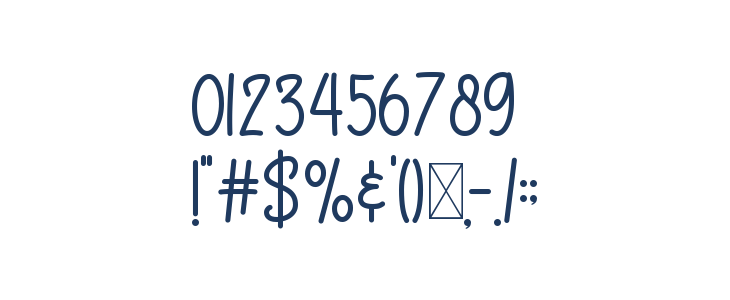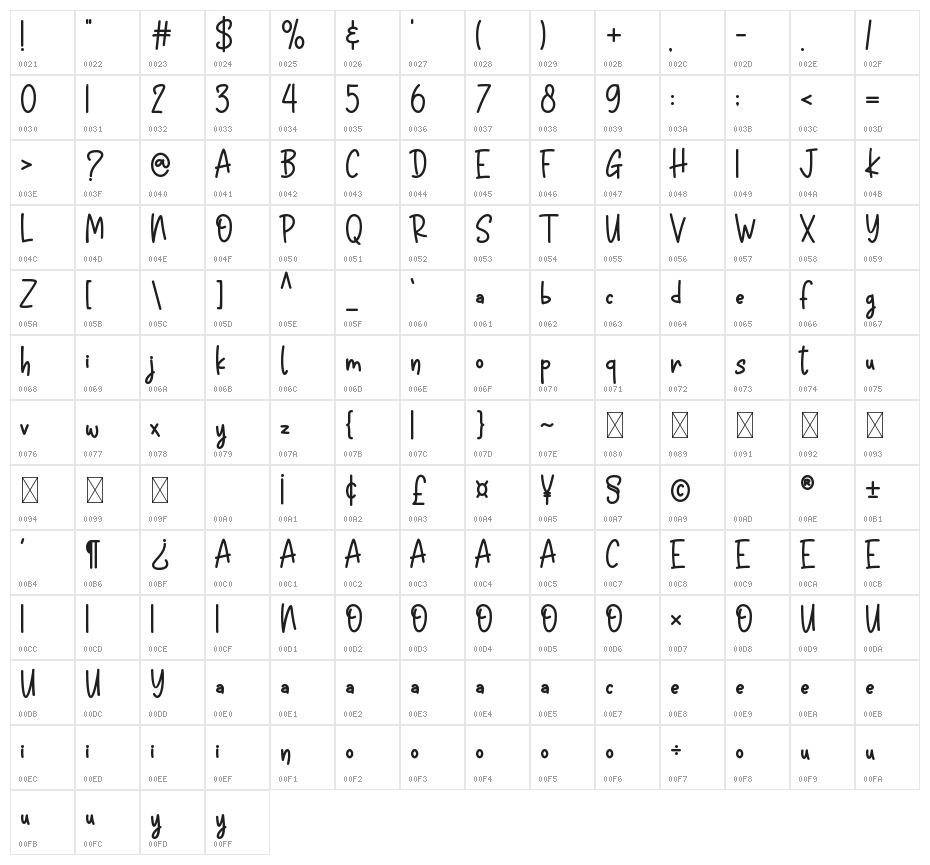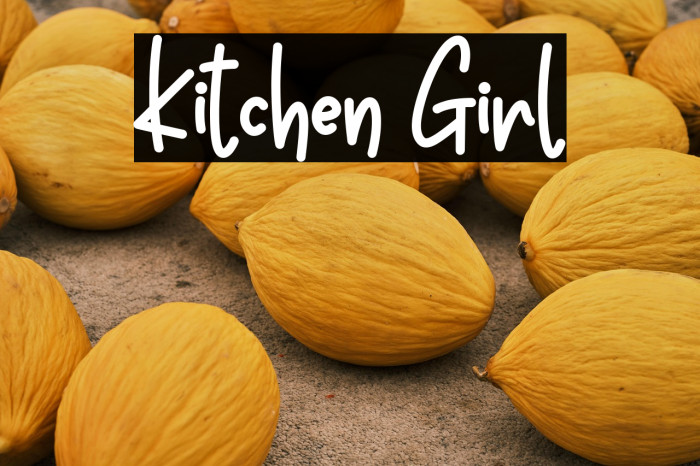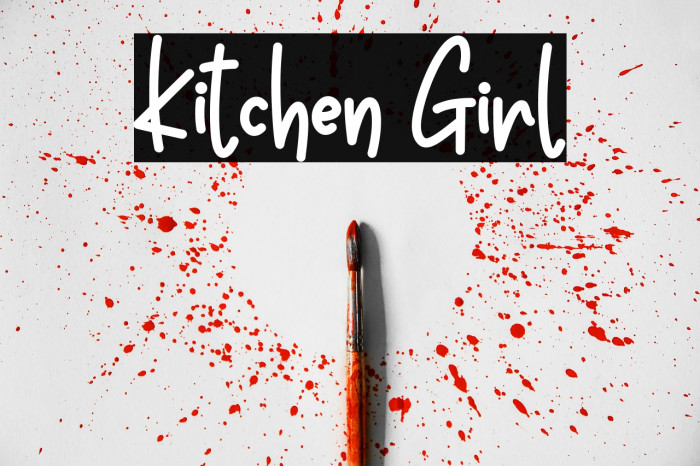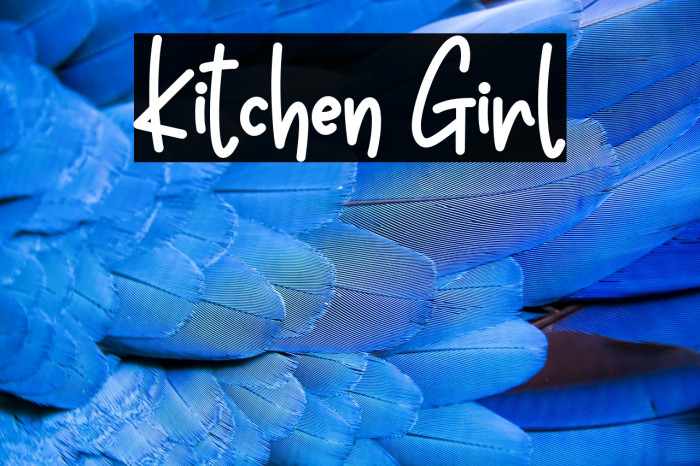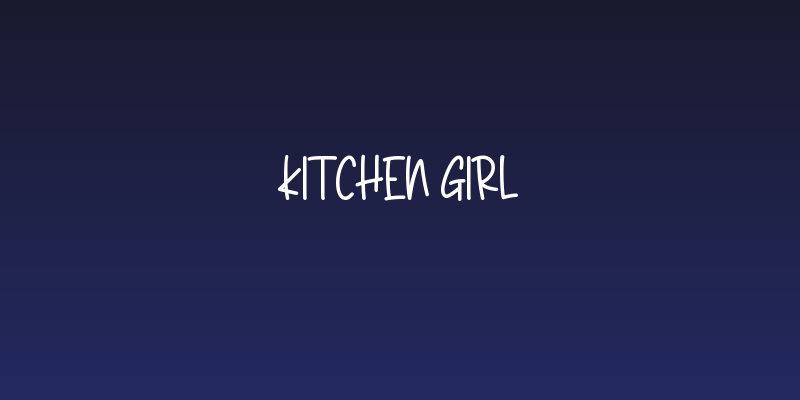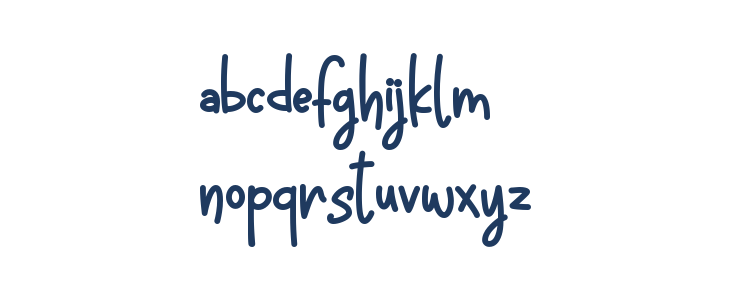
Kitchen Girl Font
Kitchen Girl Description
A playful, handwritten font with a casual and friendly appearance. The letters are slightly irregular, adding a personal touch.
| Overall Style | Casual, Playful |
| Use Case | Headlines, Informal text, Creative projects |
| Proposed Projects | Greeting cards, children's books, informal branding. |